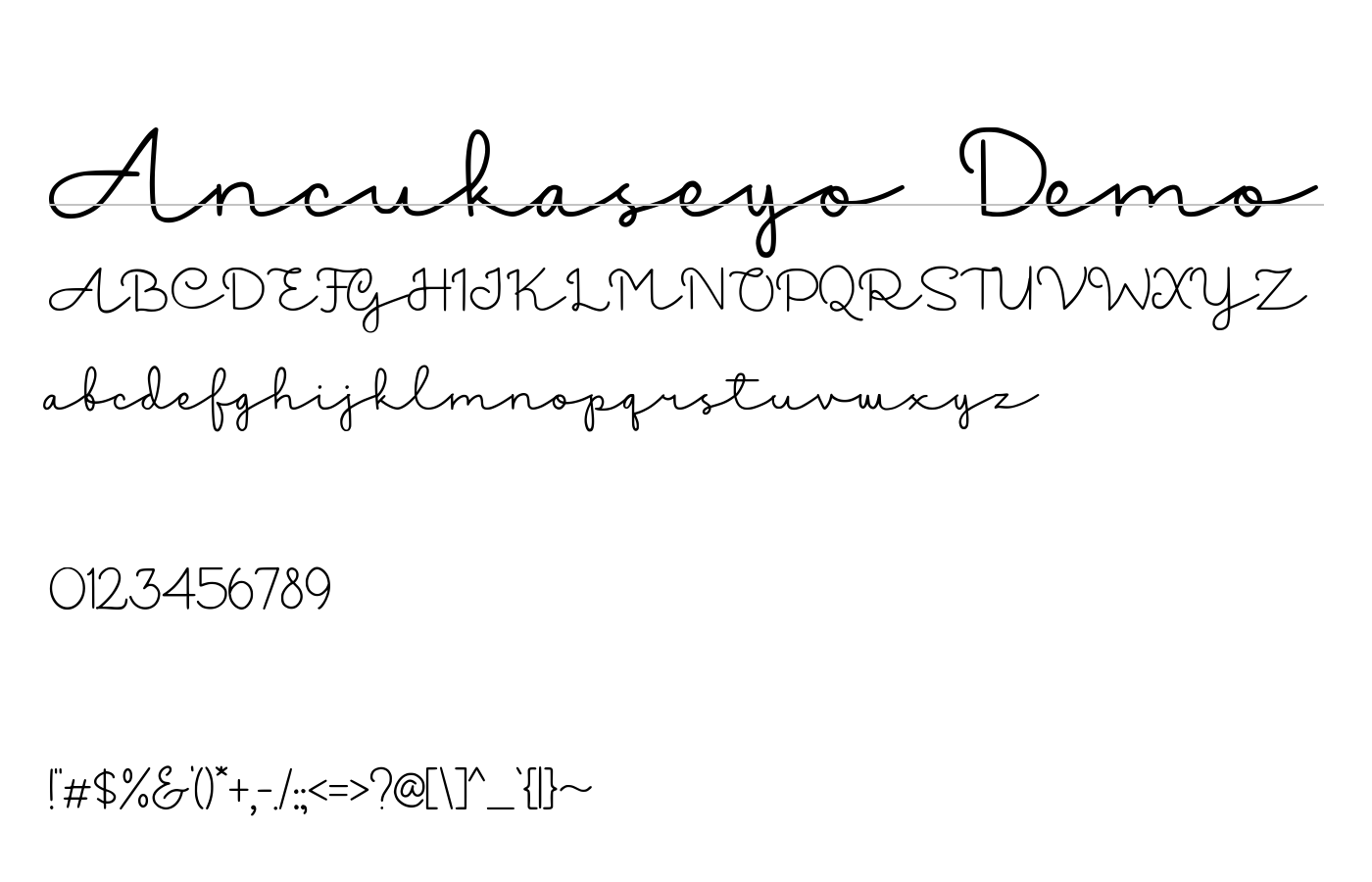
Ancukaseyo Demo Version is a delicate, handwritten script font characterized by its light, flowing strokes and elegant, casual style. Its slender, airy letterforms with playful loops make it perfect for adding a personal, friendly touch to wedding invitations, greeting cards, or lifestyle branding. This font works best in headlines or decorative text where a graceful, handcrafted feel is desired.
Ancukaseyo Demo Version Font
About Ancukaseyo Demo Version Font
| Font family | Ancukaseyo Demo Version Font |